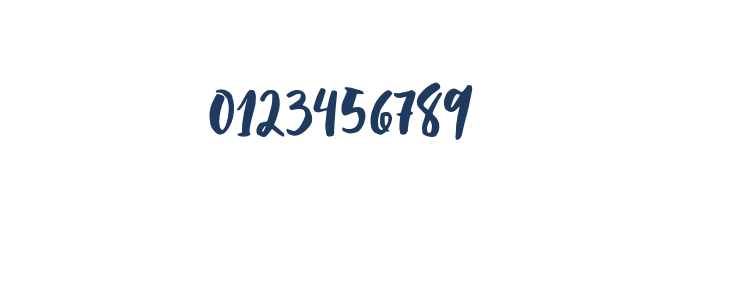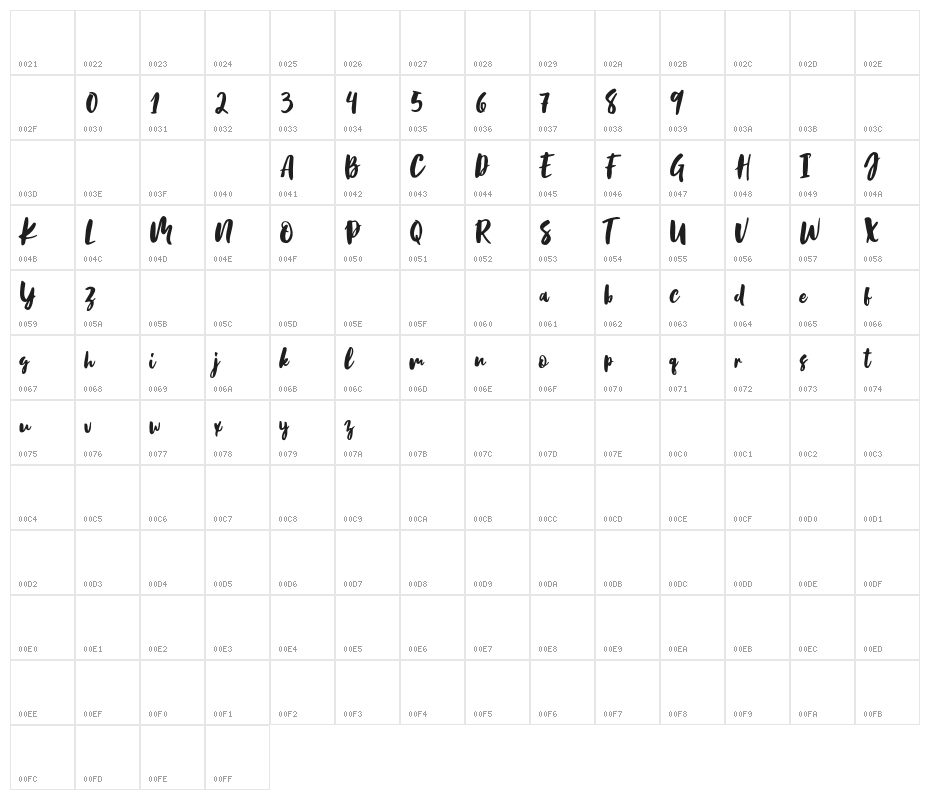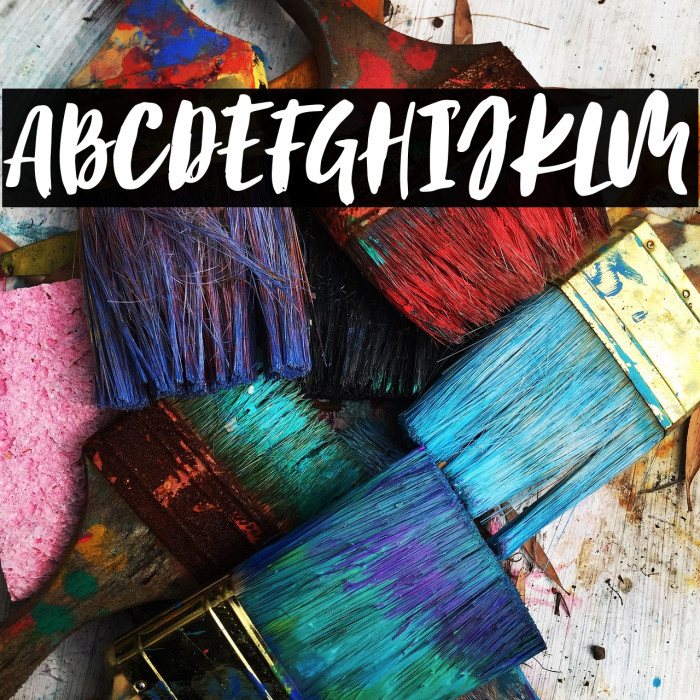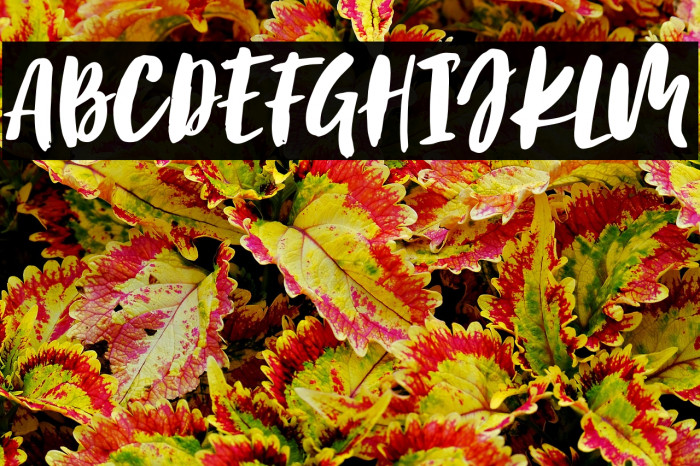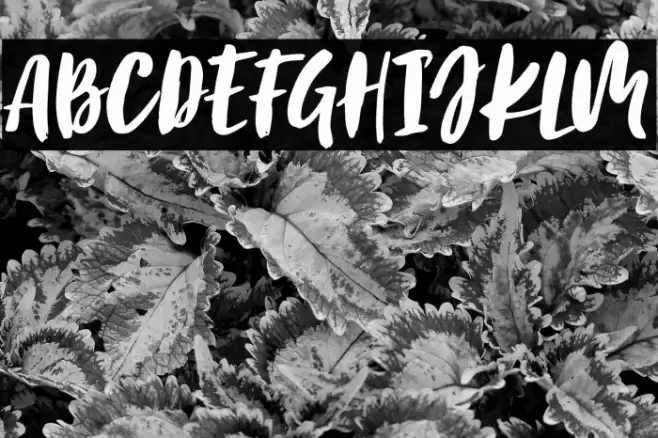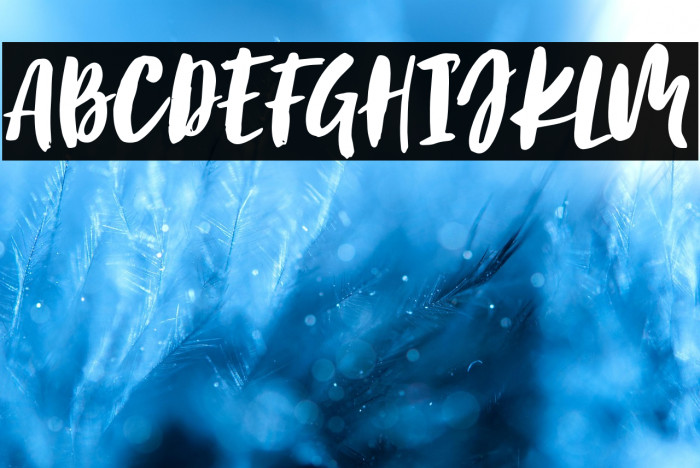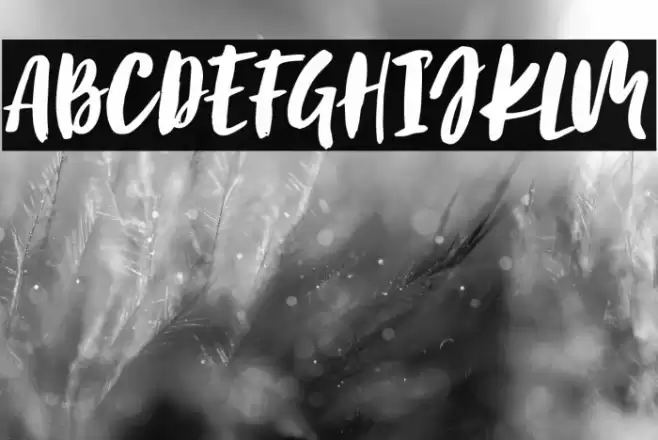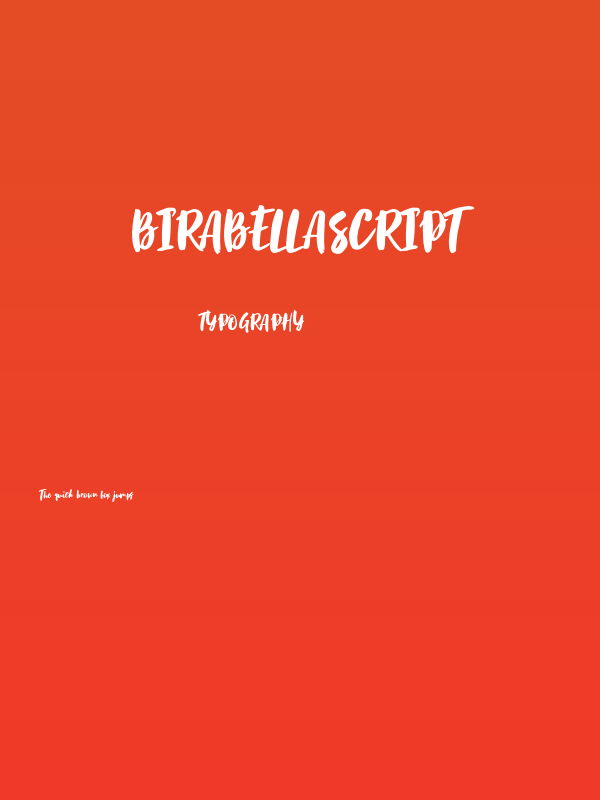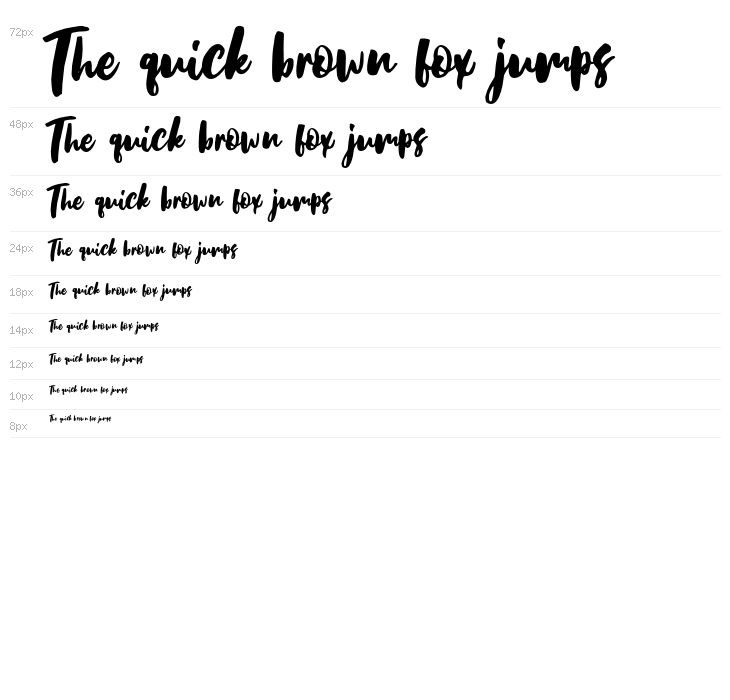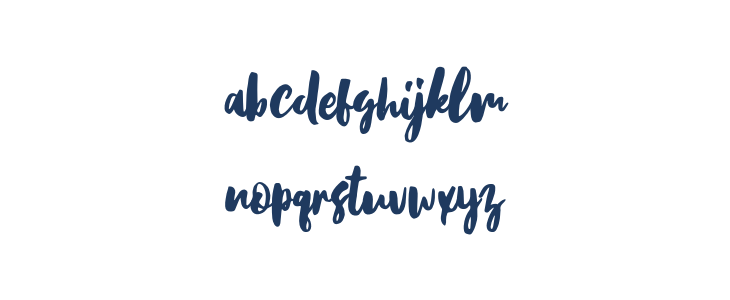
BirabellaScript Font
BirabellaScript Description
This font exudes a bold and expressive style, characterized by its fluid and dynamic script form. The letters are crafted with a brush-like appearance, giving them a hand-painted feel that is both artistic and lively. The uppercase letters are particularly striking, with sweeping curves and varying stroke widths that add a sense of movement and energy. The lowercase letters maintain this fluidity, offering a cohesive look throughout. Numbers and special characters are equally expressive, ensuring consistency across all elements. The overall design is perfect for projects that require a personal and creative touch.
| Use Case | Logos, Headlines, Artistic projects |
| Proposed Projects | Ideal for branding, invitations, greeting cards, and artistic projects that require a personal touch. |